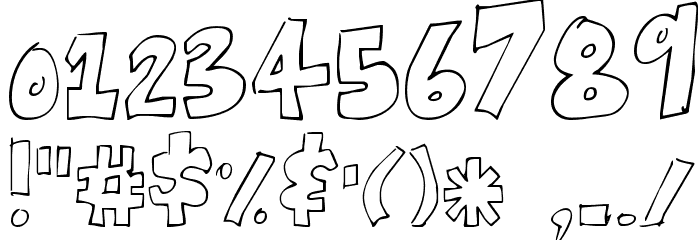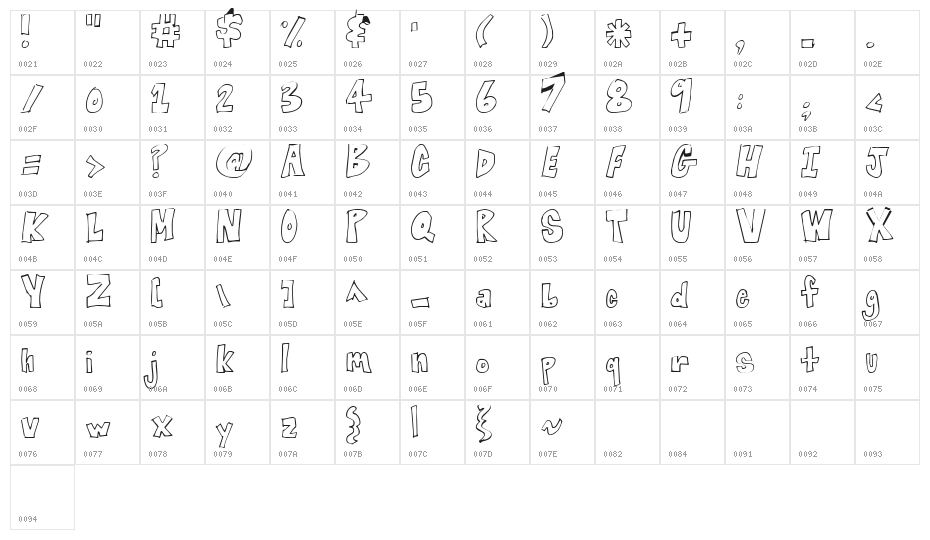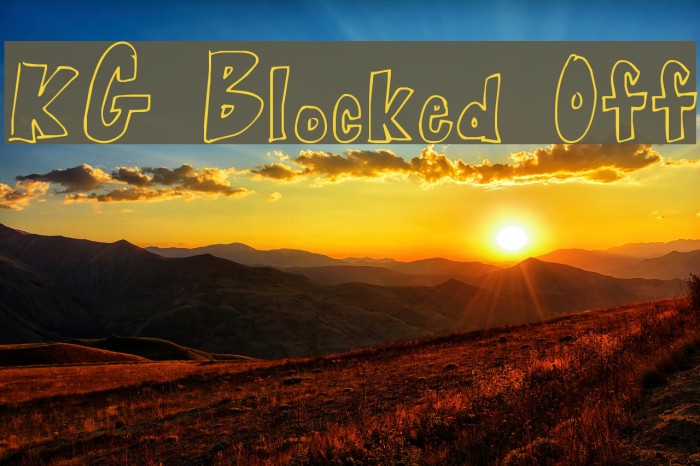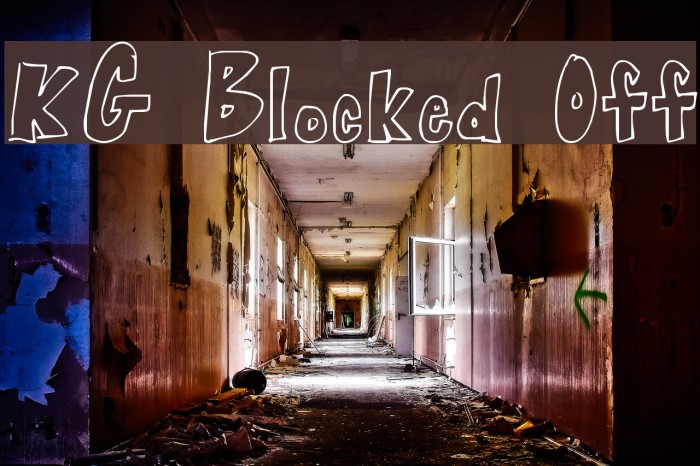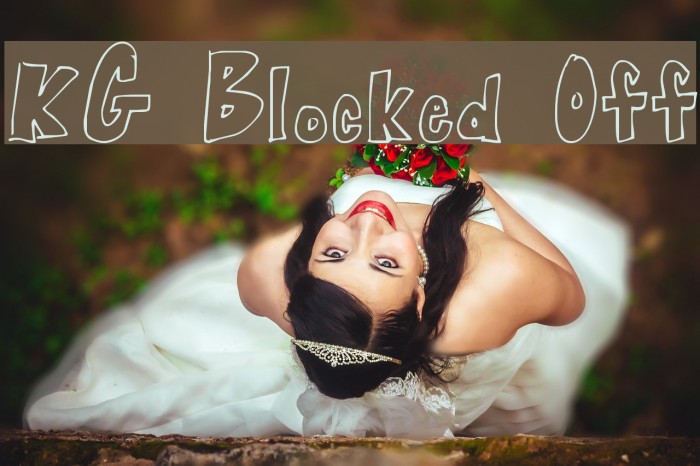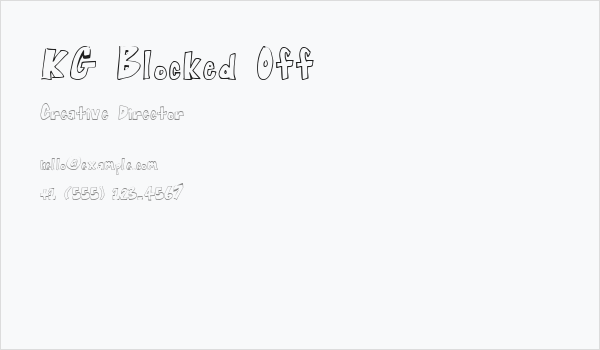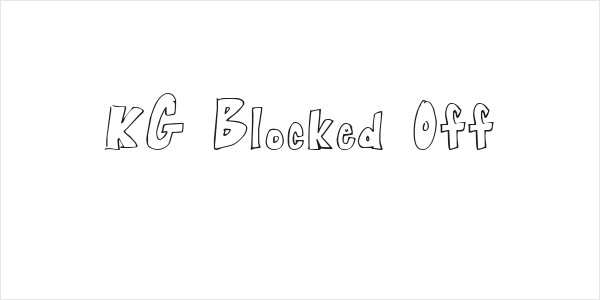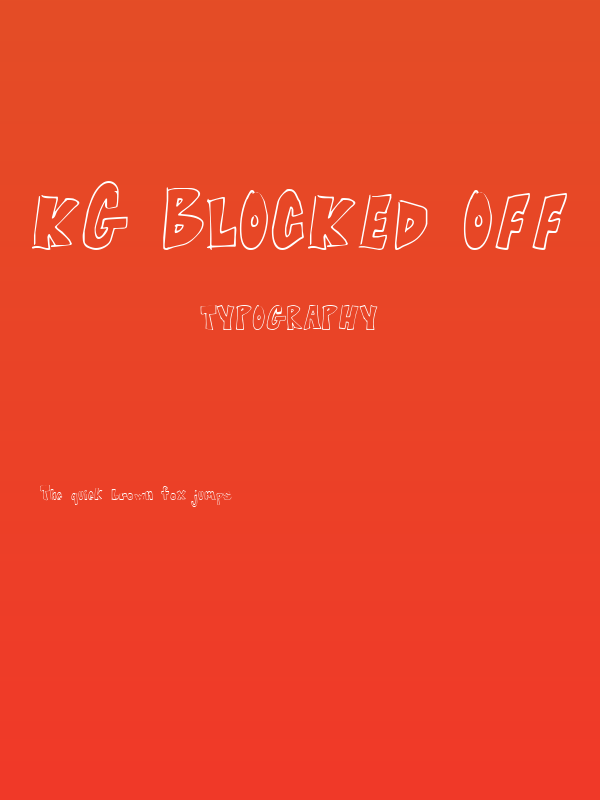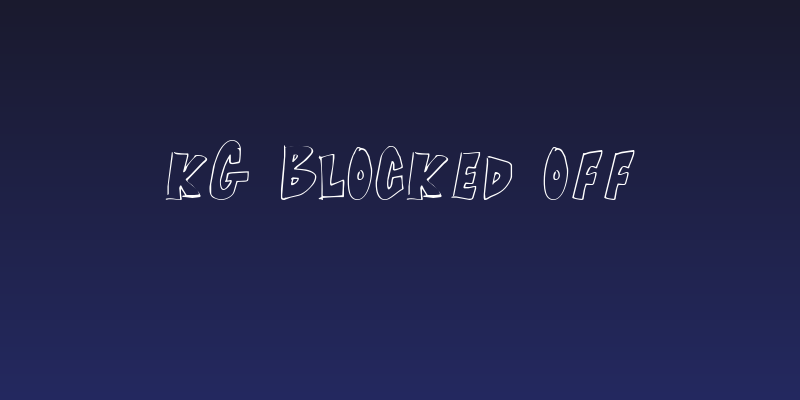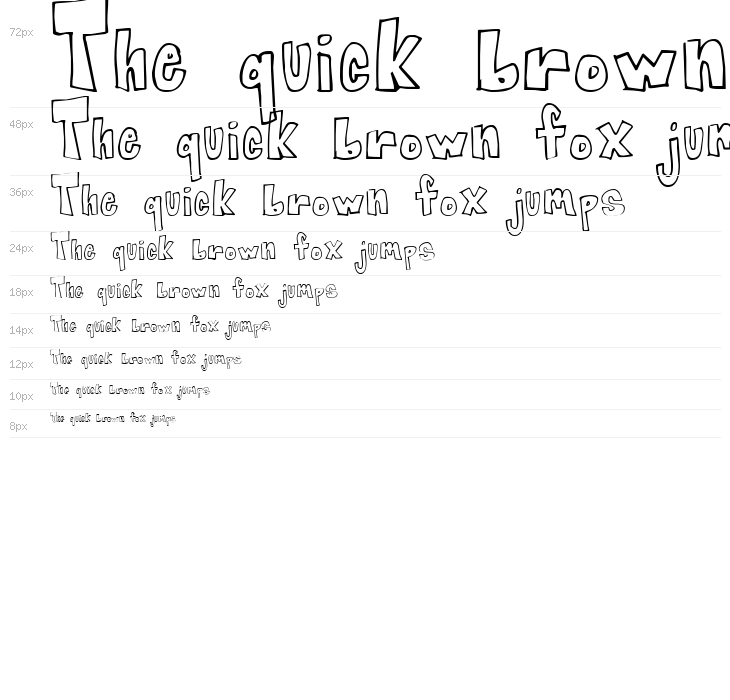
KG Blocked Off Font
KG Blocked Off Description
This playful and bold font features a hand-drawn, cartoonish style with thick, uneven strokes that give it a lively and energetic appearance. The uppercase and lowercase letters are characterized by their blocky, irregular shapes, which add a whimsical touch. The numbers and special characters maintain this quirky aesthetic, making the font ideal for creative and informal designs. Its unique style is perfect for capturing attention and conveying a sense of fun and creativity.
| Overall Style | Playful, Cartoonish |
| Proposed Projects | Ideal for children's books, comic strips, playful branding, and event posters. |